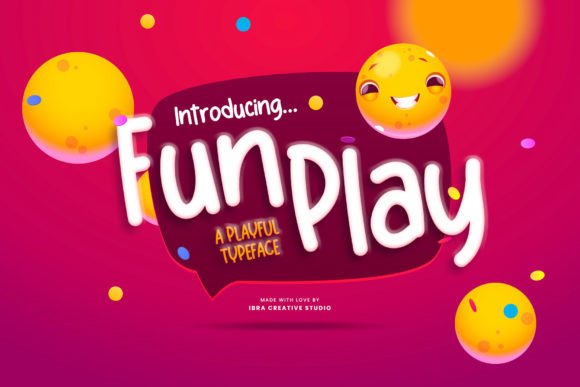
Welcome to the world of Fun Play Font, where joyfulness and exuberance reign supreme! This display font family is a masterpiece of digital artistry, crafted by the talented ibracreative, it's a symphony of creativity and cheerfulness, ready to add a spark of delight to your designs.
As you explore the depths of Fun Play Font, you'll be captivated by its spirited and playful nature. Its whimsical letterforms dance across the screen like enchanting sprites, infusing any project with an irresistible sense of lightheartedness and merriments. Each character is a testament to the font's infectious energy, radiating a vibrant enthusiasm that is sure to uplift your spirits and spark your imagination.
Fun Play Font's bold lines and charming irregularities are like a playful invitation to unleash your creativity. It's the perfect choice for projects that demand an animated and cheerful vibe, such as children's books, playful branding, vibrant signage, and any endeavor where a touch of whimsy is desired.
Step into a realm of boundless creativity with Fun Play Font. Let your designs come alive with its dynamic personality and vibrant colors, creating an interactive visual experience that captivates and engages your audience. Every project adorned with Fun Play Font becomes a lively playground of imagination and creativity, where joy and laughter are the driving forces.